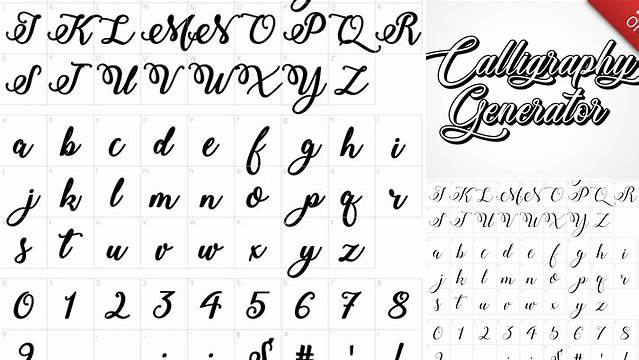
Are you looking to add a touch of elegance and sophistication to your designs? Then calligraphy fonts are the way to go! In this comprehensive guide, we'll delve into the world of stylish calligraphy font generators, exploring how you can download them for free and use them to create stunning visuals. Whether you're a seasoned designer or just starting, mastering the art of calligraphy fonts can elevate your projects to a whole new level. Let's dive in, guys!
What is a Calligraphy Font Generator?
Let's start with the basics. A calligraphy font generator is essentially a tool that allows you to create text in a variety of calligraphy styles. Think of it as your personal calligrapher, but in digital form! These generators come in different shapes and sizes β some are online tools, while others are software programs you can download. The primary function of these tools is to transform ordinary text into beautiful, flowing calligraphy, mimicking the strokes and curves of traditional handwriting. With a calligraphy font generator, you can experiment with various styles, from classic and elegant to modern and quirky, all at the click of a button. This makes it incredibly easy to add a personal touch to your projects without needing to learn traditional calligraphy skills.
Key features of a typical calligraphy font generator include a wide range of font styles, customization options, and ease of use. You can usually adjust the size, color, spacing, and other aspects of the text to fit your design needs. Some generators even allow you to upload your own fonts or create custom styles, giving you even more creative freedom. Whether you're designing invitations, logos, social media graphics, or any other visual content, a calligraphy font generator can be a valuable asset in your toolkit. The best part? Many of these generators offer free options, making it accessible for everyone to explore the beauty of calligraphy.
Why Use Calligraphy Fonts?
So, why should you even bother with calligraphy fonts? Well, the answer is simple: they add a unique and personal touch to your projects that other fonts simply can't match. Calligraphy fonts have an inherent elegance and charm that can elevate the look and feel of your designs, making them stand out and capture attention. Imagine a wedding invitation written in a classic calligraphy script β it immediately conveys a sense of sophistication and romance. Or a logo with a modern calligraphy font, giving it a stylish and personalized touch. The possibilities are endless.
Calligraphy fonts aren't just about aesthetics, though. They also have a psychological impact on the viewer. The fluid, hand-drawn nature of calligraphy evokes feelings of warmth, creativity, and authenticity. It's like adding a human touch to your digital designs. This can be particularly effective in branding, where you want to create a connection with your audience. A well-chosen calligraphy font can communicate your brand's personality and values, making it more memorable and relatable. Furthermore, calligraphy fonts can help you create a visual hierarchy in your designs. By using them for headings, subheadings, or accent text, you can draw the viewer's eye to specific areas and guide them through your message. This is a powerful tool for creating engaging and effective visual communication. Whether you're designing for print or digital media, incorporating calligraphy fonts can significantly enhance the overall impact of your work. Itβs like sprinkling a bit of magic dust on your designs, making them truly special.